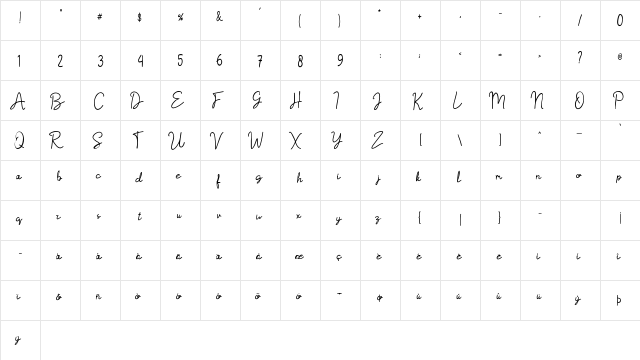
Hollandy Regular
Design Context for Hollandy Typeface
Hollandy is a composed and adaptable typeface that performs quietly and consistently across a wide range of design contexts.